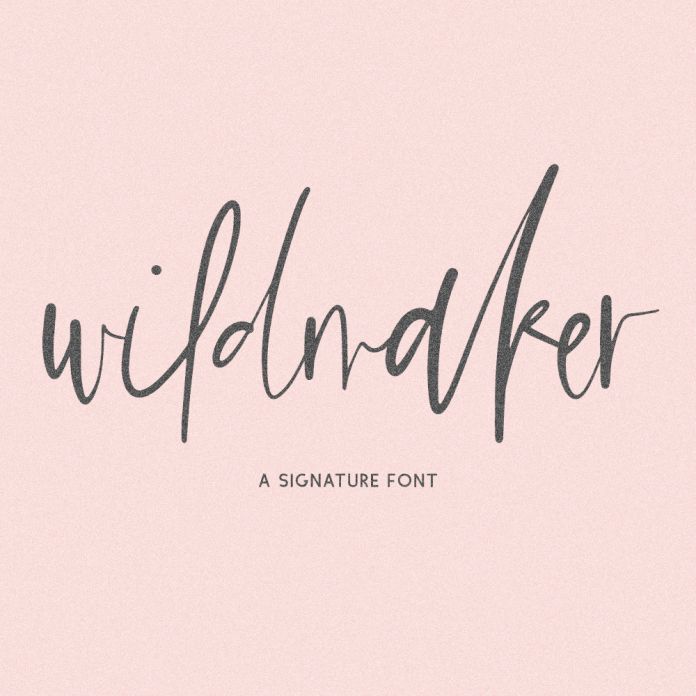
Wildmaker Script Font
Introducing Wildmaker Script, a modern, edgy handwriting font. Wildmaker is best for: - logos + branding - website design + website accents, blog design - clean print design, like magazines + flyers - header elements that need handwritten touch - quote graphics for social media Wildmaker includes: - full upper + lowercase characters - numbers + punctuation - Western European Language Support - 29 alternates - 47 ligatures - ak, al, am, an, ar, as, bb, bl (x2), cc, ch, ck, cr, dd, ee, el, er, es, ey, ff, fi, fl (x2), gg, gh, gr, il, ir, is, it, ll, mm, nn, of, ol, oo, or, os, pp, rr, ss, st, tr, tt, ul, ur, us - PUA-encoding